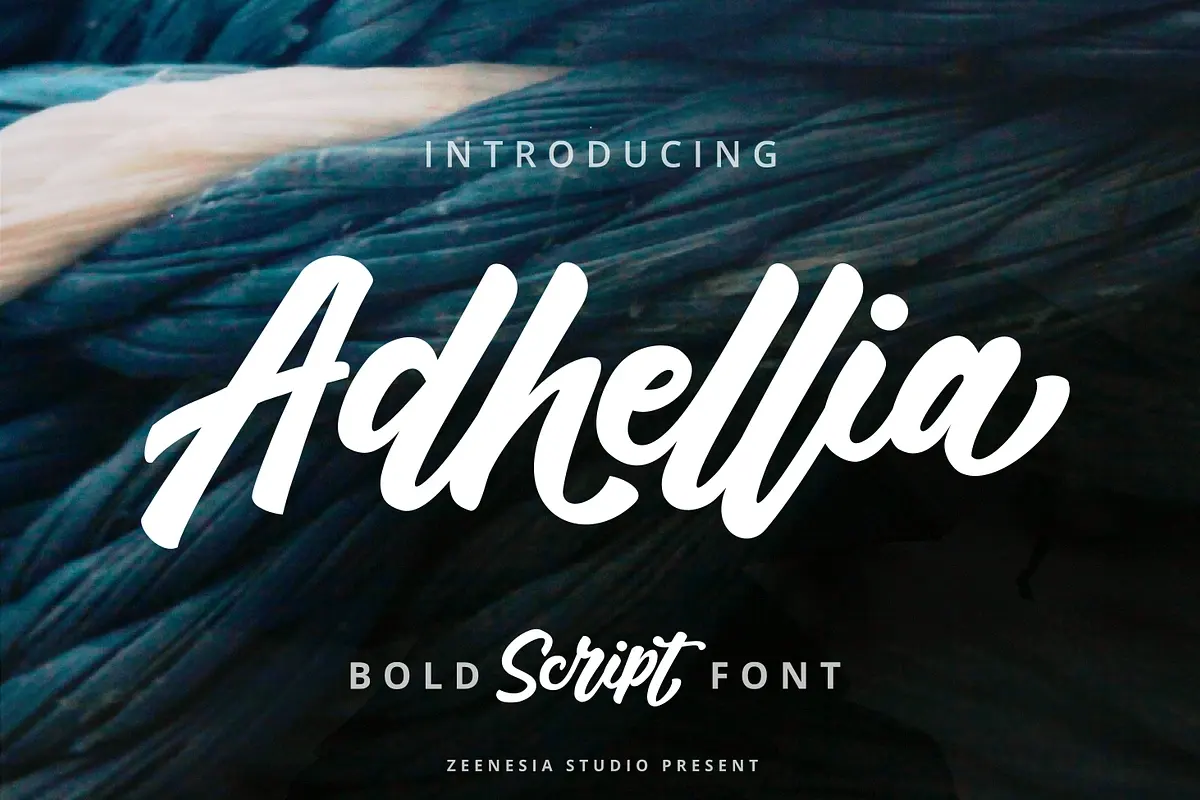
Adhellia - Bold Script Font Free Download
Adhellia – Bold Script Font Free Download
Adhellia – Bold Script Font Free Download is a striking and elegant handwritten script typeface that combines bold strokes with fluid, flowing curves. Perfect for creating standout logos, product packaging, social media graphics, invitations, and promotional content, this font brings an eye-catching, personal touch to any design.
With its strong, expressive style and beautiful cursive flair, Adhellia – Bold Script Font Free Download is ideal for projects that require a bold, confident aesthetic while maintaining elegance and charm.